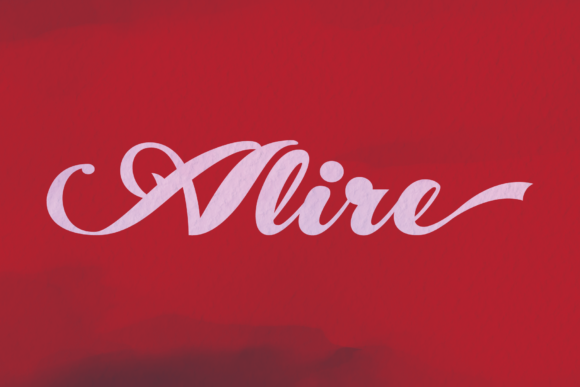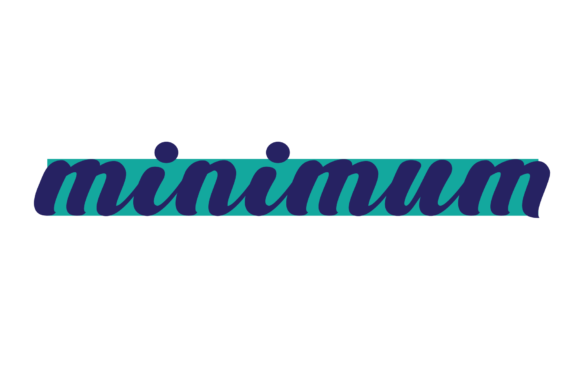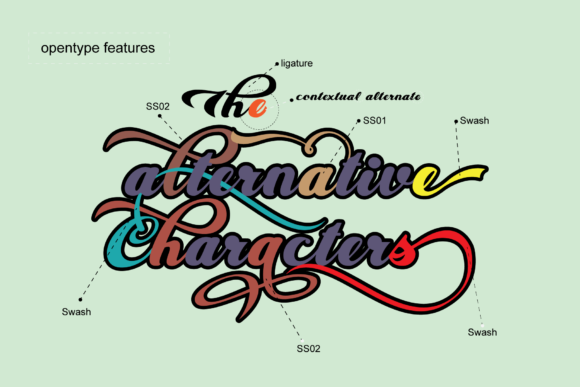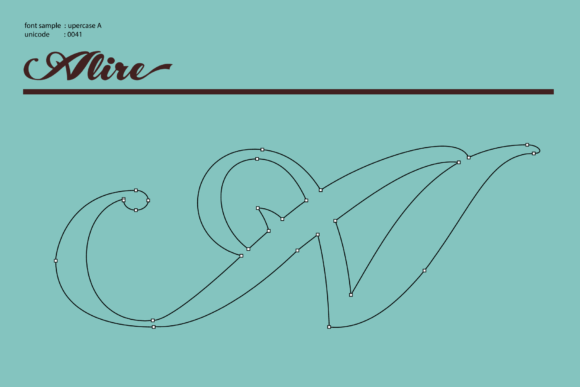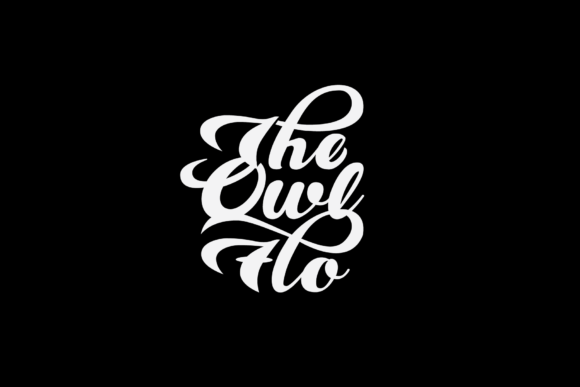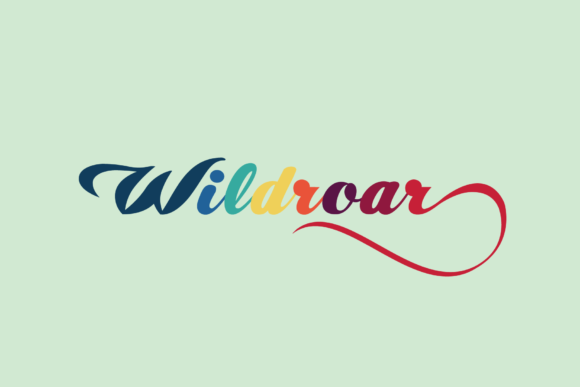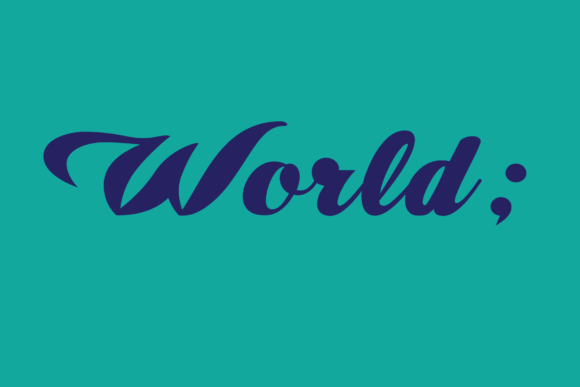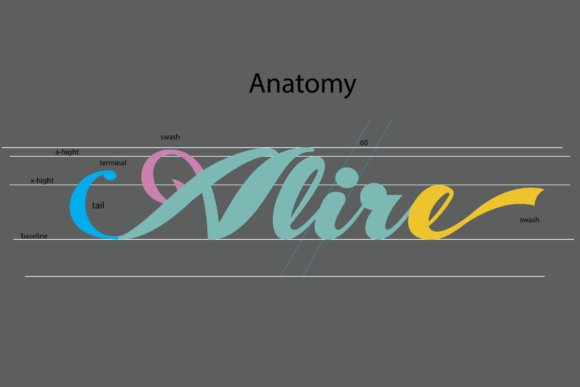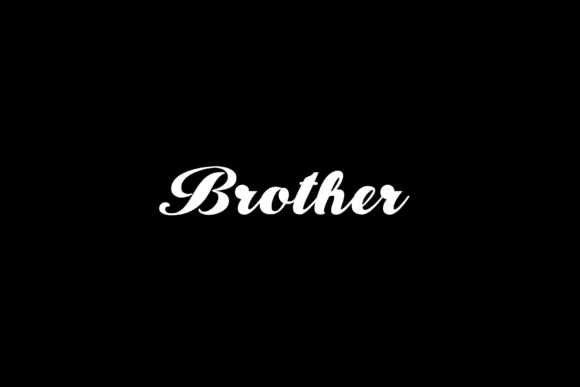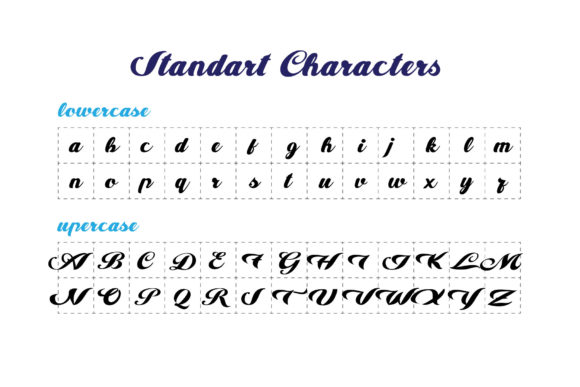
HomeScript FontsAlire Font Script Fonts Alire Font FacebookXPinterestWhatsApp Alire Font Poster 2 Alire Font Poster 3 Alire Font Poster 4 Alire Font Poster 5 Alire Font Poster 6 Alire Font Poster 7 Alire Font Poster 8 Alire Font Poster 9 Alire Font Poster 10 Alire Font Poster 11 Alire Font Poster 12 Alire Font Poster 13 Alire Font Poster 14 Alire Font Poster 15 About Alire Font Alire is a cursive font inspired by famous retro typography design. Get inspired by its classic appeal! DOWNLOAD ON CREATIVE FABRICAThis font is sold and delivered by Creative Fabrica. Font Canyon may earn a commission if you buy through this link. People also explored Chocopie Font Airfield Font Dharma Slab E Raisya Font Mockup Design Font Sans Ferios Font Dehasta Momentos Font Affectionate Font Christmas Jumper 2023 Font 309 0 TagsAlire Font Previous articleMarthiline FontNext articleCatalunya Font LEAVE A REPLY Cancel reply Comment: Please enter your comment! Name:* Please enter your name here Email:* You have entered an incorrect email address! Please enter your email address here Website: Save my name, email, and website in this browser for the next time I comment. Personal Use Free Lemon Milk Font Personal Use Free Read more about this font Unispace Personal Use Free Read more about this font Bulky Personal Use Free Read more about this font Dream Personal Use Free Read more about this font BLOG Free Fonts Risk: Why Free Fonts Can Be Dangerous for Designers Free Fonts Risk: Why Free Fonts Can Be Dangerous for Designers Using free fonts is a common practice in web and graphic design. However, the... How to Cut Any Font on Cricut: Convert a Font to SVG (Free) Transform Your Website: Elevate Your Typography with 7 Best Web Font Generators Top 7 Google Fonts Alternatives for Faster and Privacy-Friendly Web Design (2025)